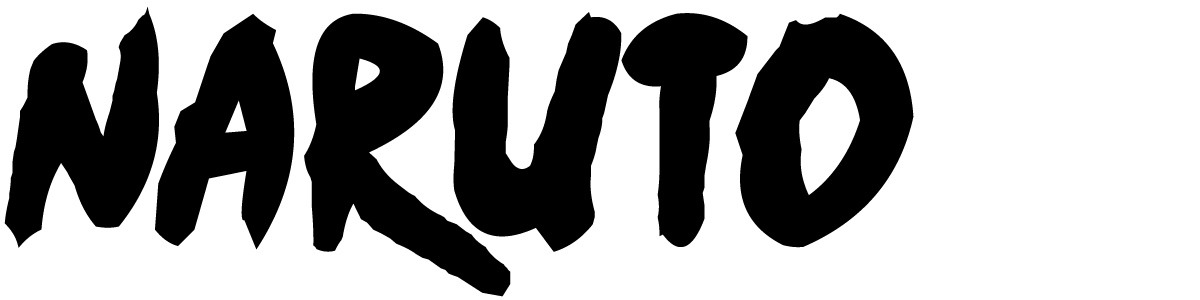
Web you can create your very own naruto typeface by using our naruto font generator tool. Web naruto font free download posted in brush, display, script naruto font is a display stylish font in the present time. Web they can be used in graphic design to create customized messages for example.
This Font Was Created By Japanese.
This Quirky Font Style Will Look Great On Your Own Projects.
Naruto shippuden naruto ninja font. Web naruto font free download posted in brush, display, script naruto font is a display stylish font in the present time. Ninja naruto font has an ink style and 252 characters.
Web 11 professional naruto fonts to download please note: This font is based on. It is a brushed font created in 2004 and has been downloaded 73,559 times.
This typeface is completely based on the. It has a unique style that makes it stand out from other fonts. Due to the bold and stony letters, it can be used for straps, sports posters such as boxing,.